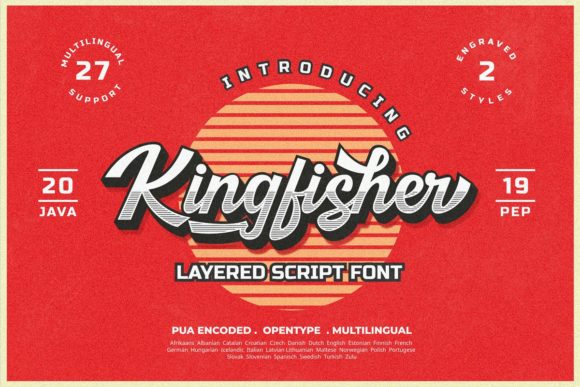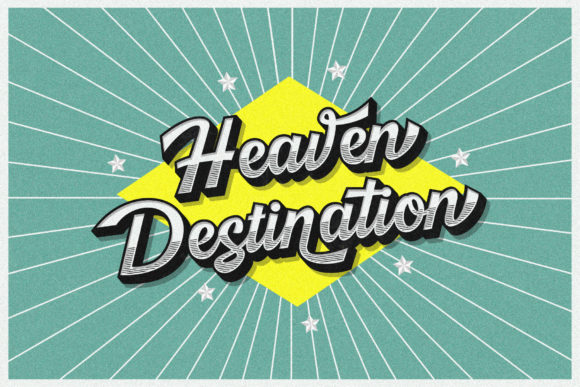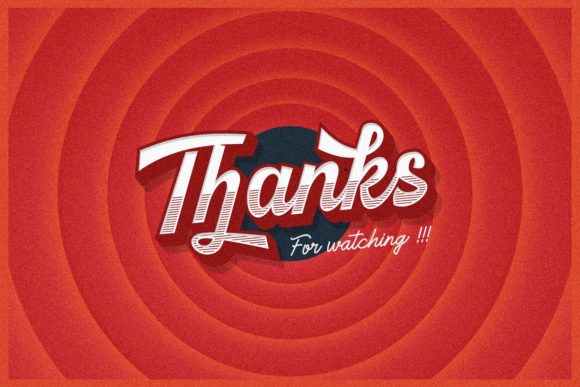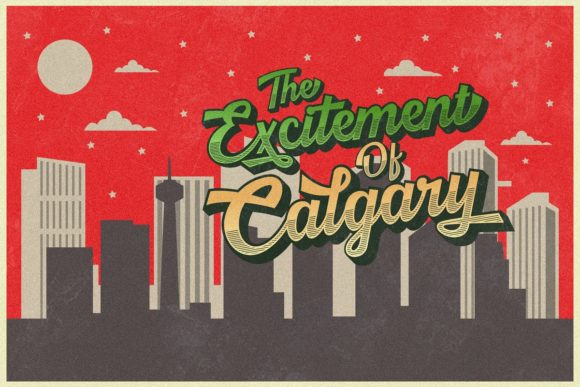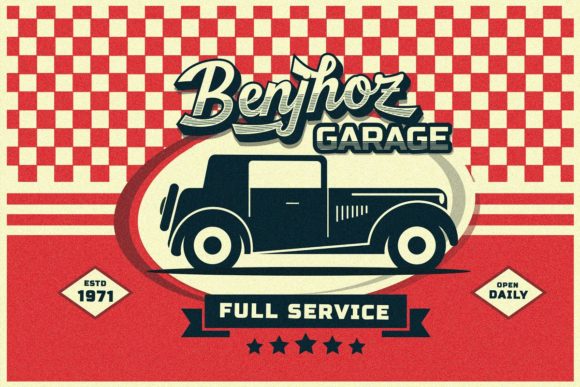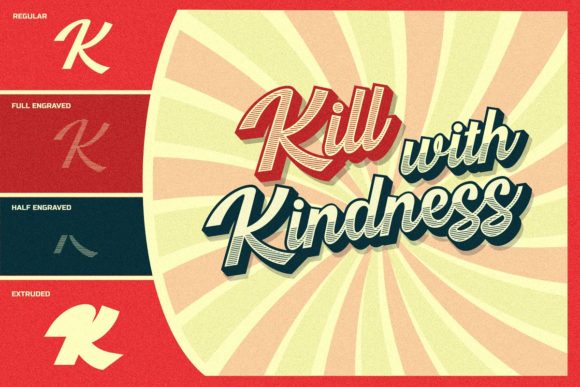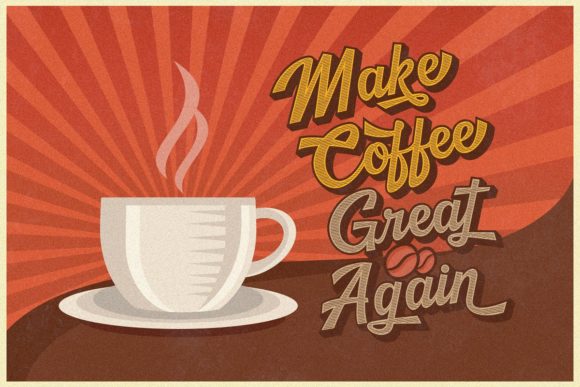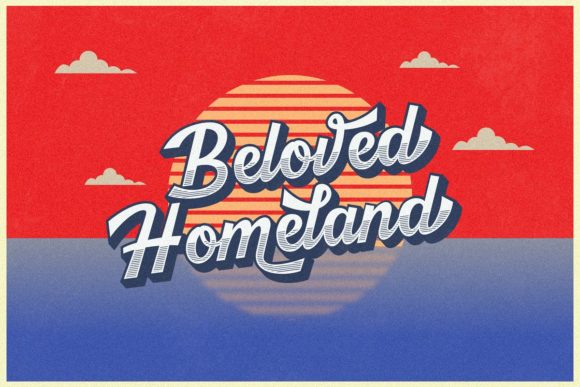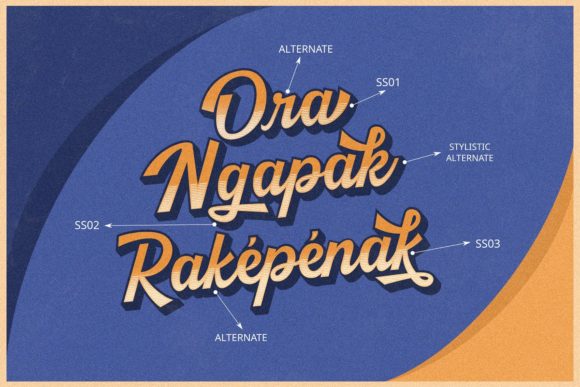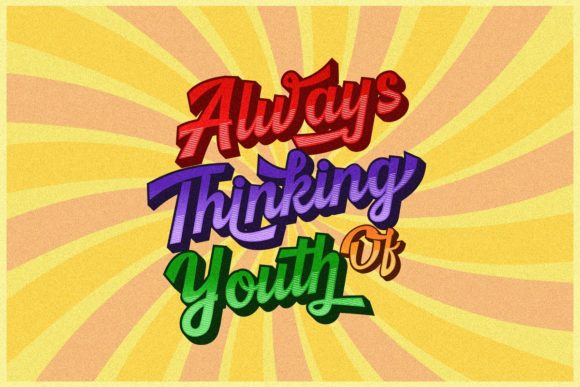
HomeScript FontsKingfisher Font Script Fonts Kingfisher Font FacebookXPinterestWhatsApp Kingfisher Font Poster 2 Kingfisher Font Poster 3 Kingfisher Font Poster 4 Kingfisher Font Poster 5 Kingfisher Font Poster 6 Kingfisher Font Poster 7 Kingfisher Font Poster 8 Kingfisher Font Poster 9 Kingfisher Font Poster 10 Kingfisher Font Poster 11 About Kingfisher Font Kingfisher is a layered font with vintage style. Get inspired by its bold old-school nature! DOWNLOAD ON CREATIVE FABRICAThis font is sold and delivered by Creative Fabrica. Font Canyon may earn a commission if you buy through this link. People also explored Diary Font Atoney Behind Brown Eyes Font Kitcat Athletic Heather Styled V-Neck T-Shirt Mockup Photo Black Rotela Script Font Wax Font Wedding Ornament Font Childrent Font 358 0 TagsKingfisher Font Previous articleChester FontNext articleXmas List Bold Font LEAVE A REPLY Cancel reply Comment: Please enter your comment! Name:* Please enter your name here Email:* You have entered an incorrect email address! Please enter your email address here Website: Save my name, email, and website in this browser for the next time I comment. Personal Use Free Aseline Personal Use Free Read more about this font Sea Gardens Personal Use Free Read more about this font Quentin Personal Use Free Read more about this font Sileighty Personal Use Free Read more about this font BLOG How to Install and Use Fonts on Windows, macOS, and Web Projects How to Install and Use Fonts on Windows, macOS, and Web Projects Fonts are a crucial part of design and branding. Whether you’re designing a... How to Cut Any Font on Cricut: Convert a Font to SVG (Free) Where to Buy American Fonts Online in 2024 Fonts That Capture the Spirit of New York City